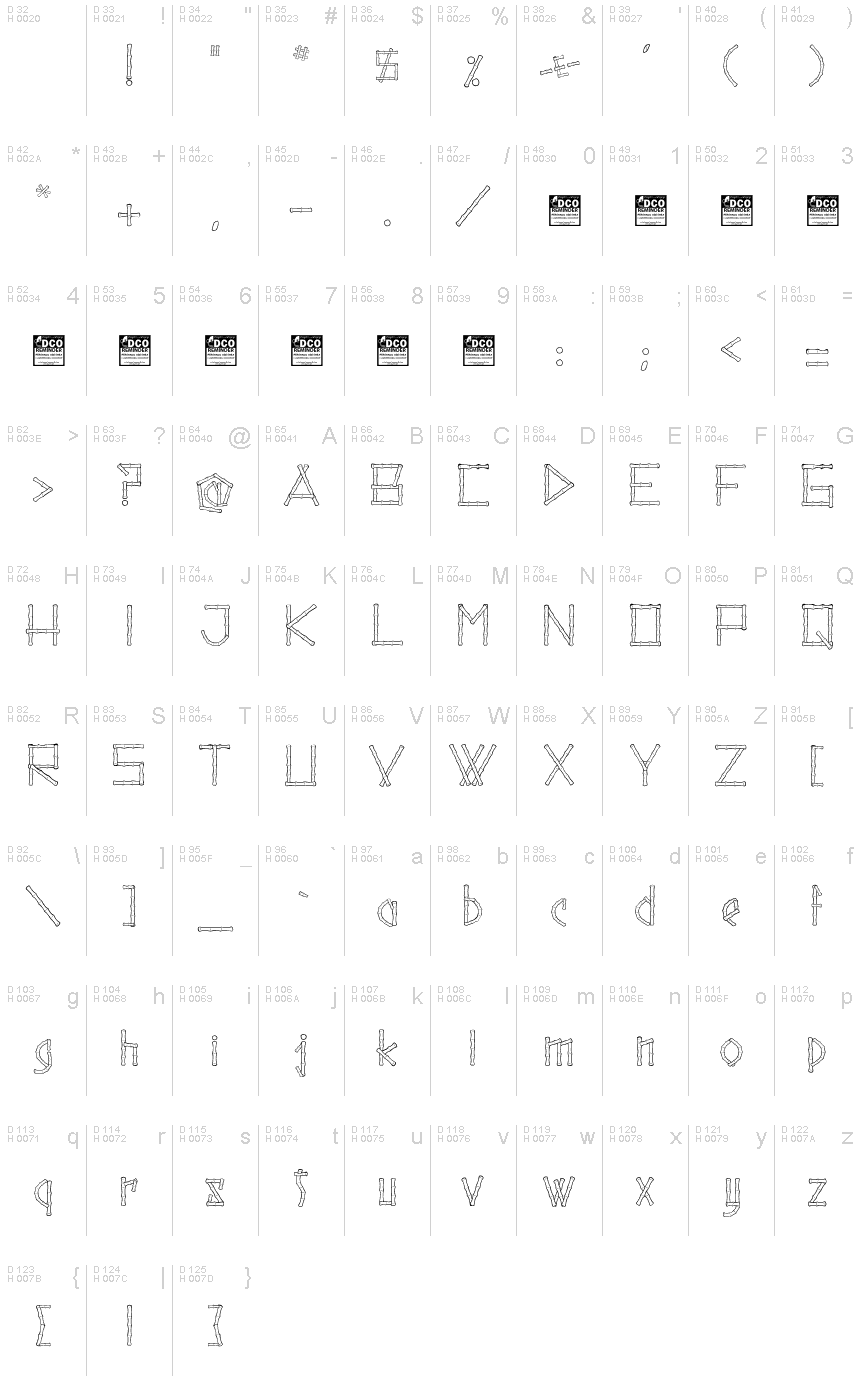
Reed Sticks is a light display font created by Gregory Medina of dcodesign. Its playful, cartoon style makes it a great choice for projects that need to add a bit of whimsy and charm. This font is perfect for creating logos, children's products, or titles for social media posts that need to stand out from the crowd. Reed Sticks can also be used to add a unique touch to posters and invitations.